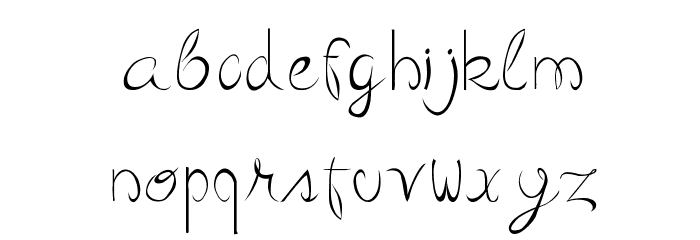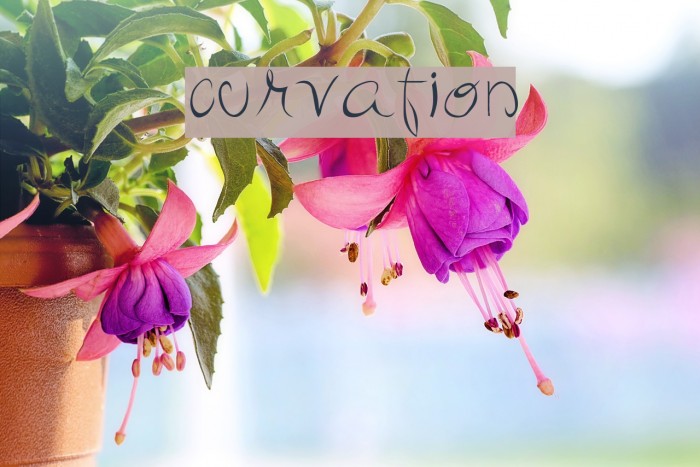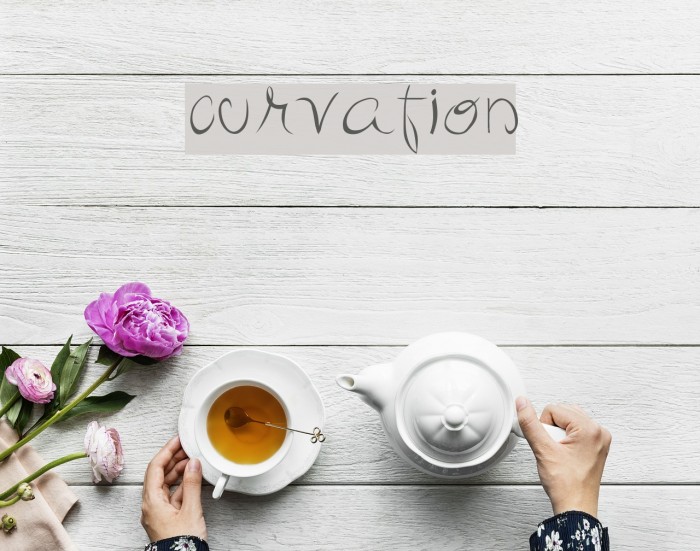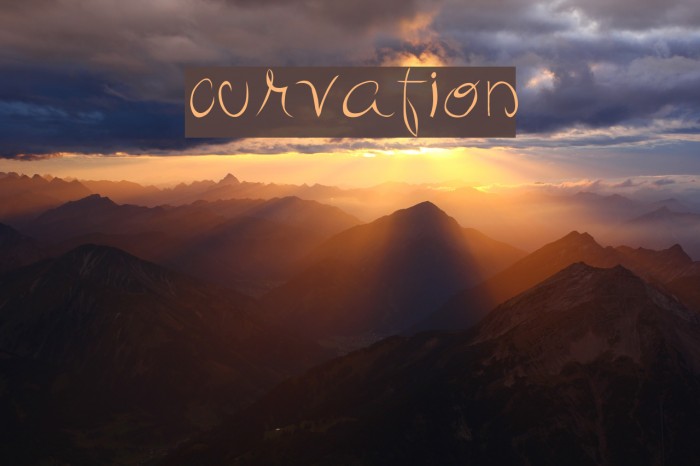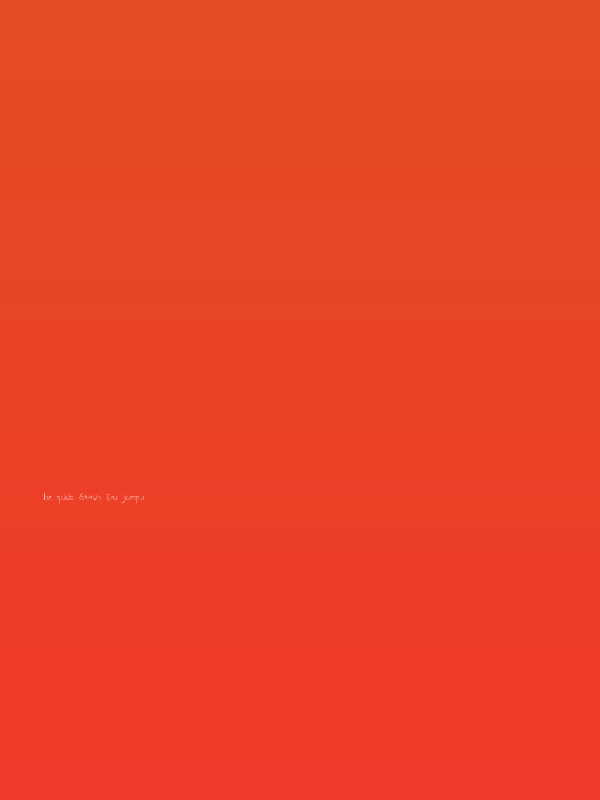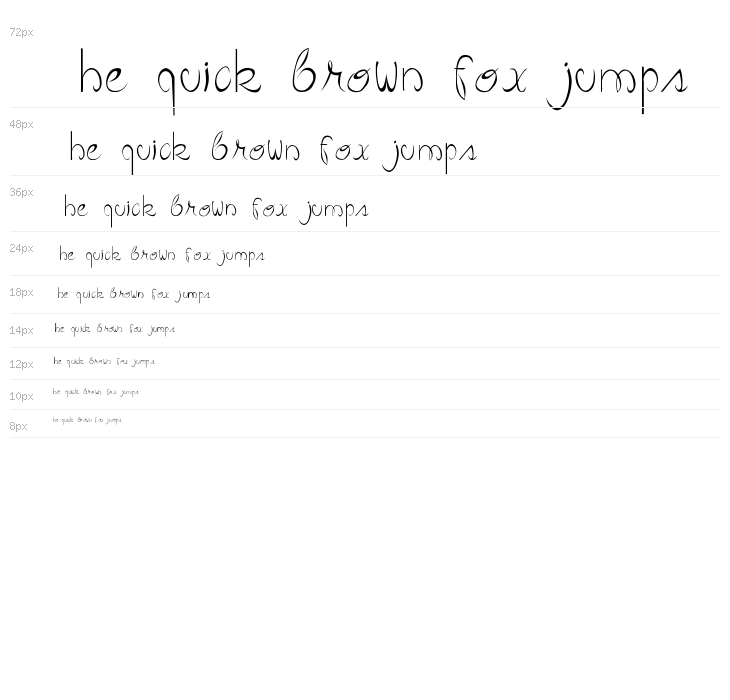
curvation Font
This font features a whimsical and artistic style, characterized by its flowing, curvaceous letterforms. Each character exhibits a unique blend of elegance and playfulness, with strokes that vary in thickness, creating a dynamic visual rhythm. The font's design incorporates subtle flourishes and loops, adding a touch of sophistication and creativity. Its overall appearance is both modern and decorative, making it suitable for projects that require a distinctive and eye-catching typeface.
A whimsical and artistic font with flowing, curvaceous letterforms.
- Proposed Projects: Ideal for creative projects such as invitations, greeting cards, branding, and artistic posters.
- Use Case: Logos, Headlines, Artistic projects